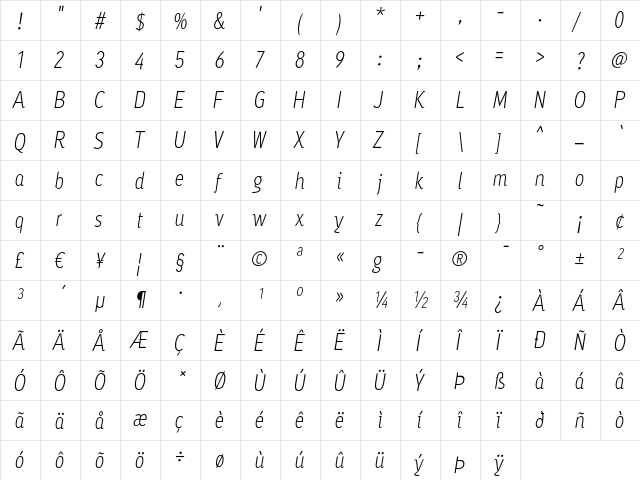
Ayumi Pro Light Italic
| Foundry | Neil Summerour (Positype) |
| Designer | Neil Summerour (Positype) |
Design Context for Ayumi Pro Typeface
Ayumi Pro is a composed and adaptable typeface that performs quietly and consistently across a wide range of design contexts. Its italic angle brings a sense of urgency and motion to the letterforms. Its slender proportions lend an understated elegance to any composition.
Pro Tip: Try Ayumi Pro for annotation and caption copy alongside an upright companion — the contrast in angle creates a dynamic but ordered typographic system.